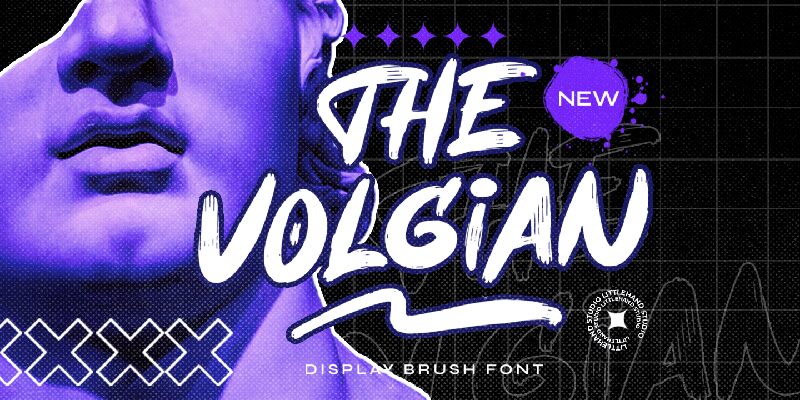
Volgian, crafted by Letterhend Studio, is an exquisite brush font with a touch of semi-light weight.
Its hand-painted strokes capture the essence of elegance and sophistication, making it perfect for wedding invitations, greeting cards, and personalized stationery. The subtle yet distinct texture adds a unique charm to branding projects such as logos and packaging designs. Volgian's versatility extends to social media graphics, blog headers, and artistic prints.
This font effortlessly combines modernity with a hint of vintage flair, making it an ideal choice for creative professionals seeking a distinctive and refined look.